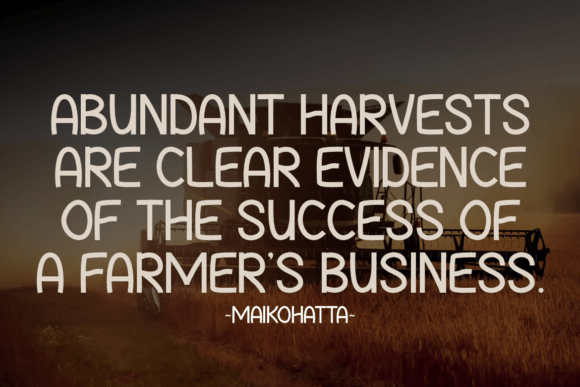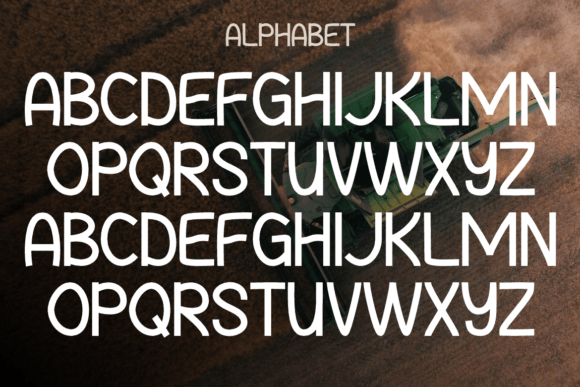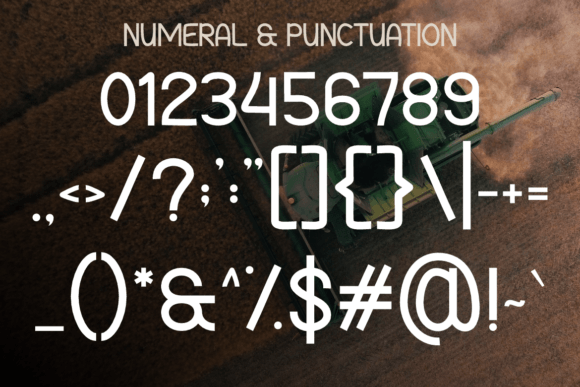
Introduction to Harvest Begins Font
Have you ever found yourself lost in a sea of vibrant colors as the leaves change with the seasons? As the air grows crisp and the trees transform into natural canvases of orange, red, and yellow, creativity often strikes. It’s in these moments that designers like you find inspiration for your next project. And for those who want to capture the essence of autumn in their work, the Harvest Begins Font is the perfect companion.
| 👤 Author | maikofarazhatta |
This beautiful font is a treasure trove of design resources, offering a unique blend of delicate lines and gentle curves that evoke a sense of softness and tranquility. With its high-quality design and transparent background, the Harvest Begins Font is an ideal choice for creative projects that aim to depict the beauty and charm of the autumn season. Whether you’re looking for a free download or a reliable font for your next design, Harvest Begins Font is a valuable asset that will elevate your work to new heights.
Key Features of Harvest Begins Font
- High-quality design resource for creative projects, ideal for food, agriculture, and seasonal themes.
- Features a transparent background, making it easy to overlay text on images or other design elements.
- Includes a range of characters, including uppercase and lowercase letters, numbers, and punctuation marks, to support a variety of creative applications.
- Designed with a rustic, hand-drawn feel, adding a unique and personal touch to any design project.
Honest Review: Harvest Begins Font
I recently had the opportunity to work with the Harvest Begins Font, and I’m excited to share my thoughts on this design resource. As a designer, I’m always on the lookout for high-quality fonts to elevate my creative projects.
Here are some things that worked well for me:
- ✨ Beautifully crafted lettering: The Harvest Begins Font features intricate, hand-drawn details that add a touch of elegance to any design.
- ✨ Wide range of customization options: The font comes with various styles, weights, and sizes, making it perfect for experimenting with different looks.
- ⚠️ Limited compatibility: I encountered some issues with the font when using it on certain platforms, which was a bit frustrating.
- ⚠️ No transparent background option: If you’re working on a design with a transparent background, you might find the font’s background a bit distracting.
Overall, I’m impressed with the Harvest Begins Font, and I think it’s a great addition to any designer’s toolkit. While it’s not perfect, its unique style and wide range of customization options make it a valuable resource for creative projects.
Use the Harvest Begins Font in conjunction with other high-quality design elements to create a cohesive and visually appealing design. Experiment with different font sizes, colors, and styles to find the perfect combination for your project.
The Harvest Begins Font is perfect for any creative project, including:
– Blog posts and articles
– Social media graphics
– Business cards and brochures
– Infographics and presentations